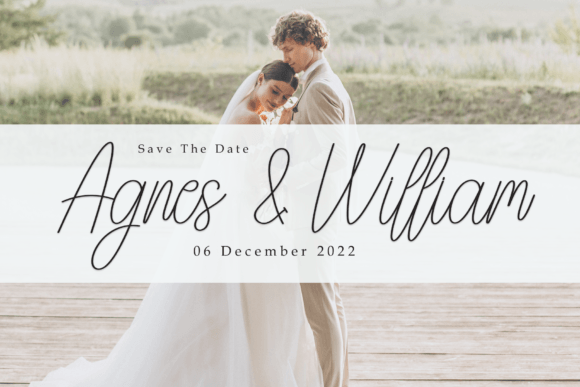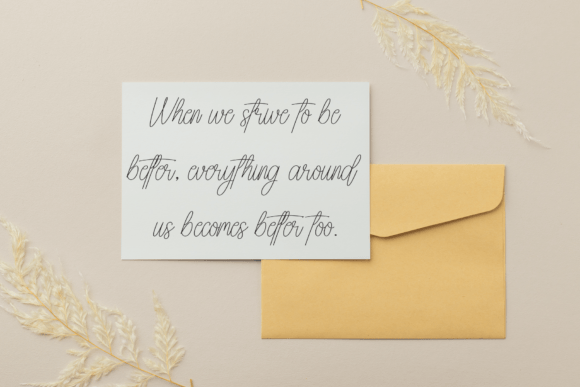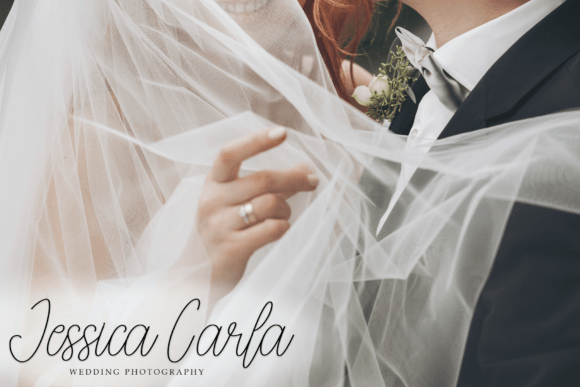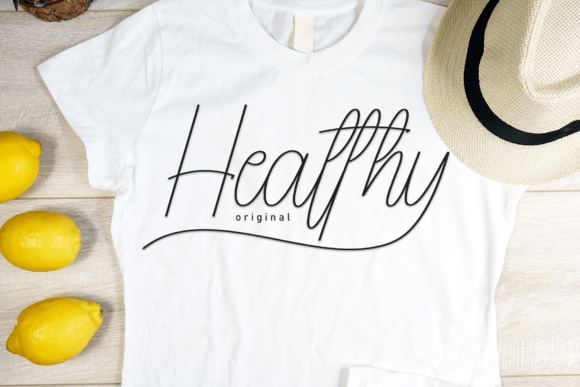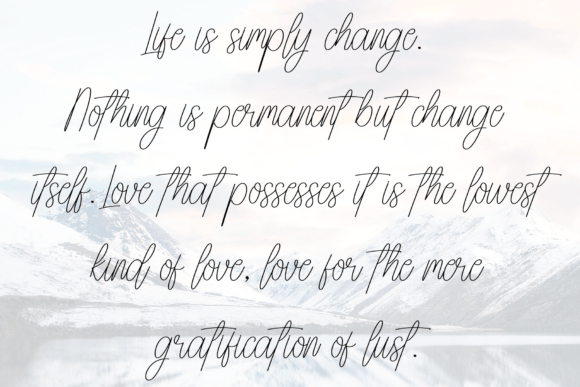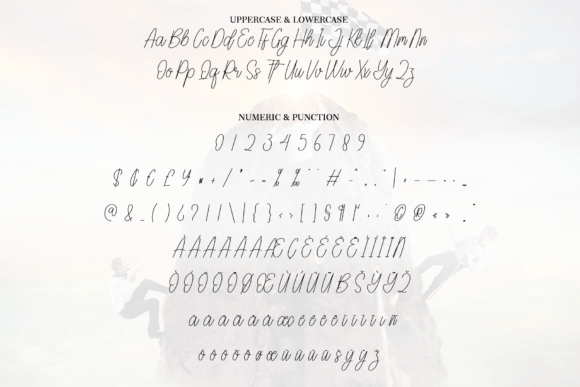
Audacity Font: The Perfect Addition to Your Design Arsenal
In the world of design, fonts play a crucial role in conveying the tone and personality of a project. Whether you’re working on a wedding invitation, a greeting card, or any other creative endeavor, the right font can make all the difference. That’s where Audacity Font comes in – a modern and elegant signature font that’s sure to add a touch of whimsy to your designs.
What is Audacity Font?
Audacity Font is a beautifully crafted font that’s perfect for designers and crafters looking to add a fun and playful touch to their work. This stunning font is characterized by its elegant and modern design, making it ideal for a wide range of projects, from wedding invitations and cards to social media graphics and more.
Key Features of Audacity Font
- Modern and Elegant Design: Audacity Font boasts a sleek and sophisticated design that’s sure to impress. Its clean lines and curves make it perfect for creating visually stunning designs.
- Cute and Fun: This font is not just elegant, but also playful and fun. It’s perfect for adding a touch of personality to your designs and making them stand out.
- Versatile: Audacity Font is incredibly versatile and can be used for a wide range of projects, from formal events like weddings to more casual designs like social media graphics.
- Easy to Read: Despite its elegant design, Audacity Font is easy to read, making it perfect for body text as well as headings.
Uses of Audacity Font
Audacity Font is perfect for a variety of design projects, including:
- Wedding Invitations: Add a touch of elegance and whimsy to your wedding invitations with Audacity Font.
- Greeting Cards: Create beautiful and personalized greeting cards for special occasions like birthdays, anniversaries, and more.
- Social Media Graphics: Use Audacity Font to create stunning social media graphics that are sure to grab attention.
- Logos and Branding: This font can also be used for logos and branding, adding a touch of personality to your brand’s identity.
Why Choose Audacity Font?
With so many fonts available, why choose Audacity Font? Here are just a few reasons:
- Unique Design: Audacity Font has a unique and distinctive design that’s sure to set your designs apart.
- High-Quality: This font is of exceptionally high quality, with clean lines and curves that will look great in any design.
Tips for Using Audacity Font
Here are a few tips for getting the most out of Audacity Font:
- Experiment with Sizes: Don’t be afraid to experiment with different font sizes to find the perfect fit for your design.
- Pair with Other Fonts: Audacity Font pairs well with a variety of other fonts, so don’t be afraid to get creative and try out different combinations.
- Use for Headings and Body Text: This font is perfect for both headings and body text, making it a great all-around choice for designers.
In conclusion, Audacity Font is a stunning and versatile font that’s perfect for designers and crafters looking to add a touch of elegance and whimsy to their work. With its modern and elegant design, cute and fun personality, and wide range of uses, this font is sure to become a staple in any designer’s arsenal. So why wait? Download Audacity Font today and start creating stunning designs that are sure to impress!